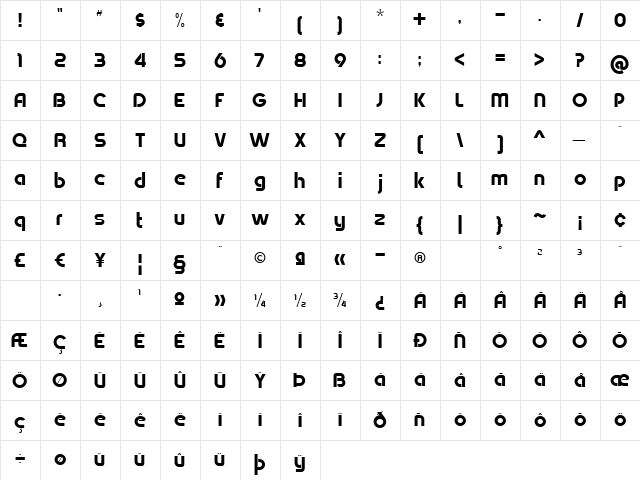
Macrame BV One Regular
Design Context for Macrame BV One Typeface
Macrame BV One offers clean, dependable letterforms without strong stylistic allegiance, making it a practical choice for designers who need flexibility.